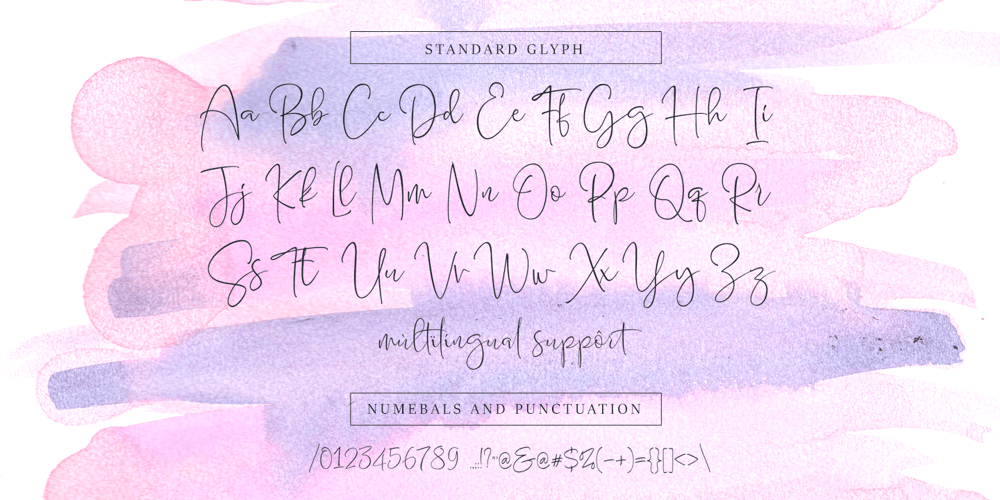
Sumantry Font Family was designed by Roiyani Teungku and published by Artisan Studio. Sumantry contains 1 styles and family package options. Sumantry is the only feminine font script, with a pure handwriting style, and very perfect for invitations, signatures, logo designs, brands, and resources from this font can also be in the title of books and magazines.